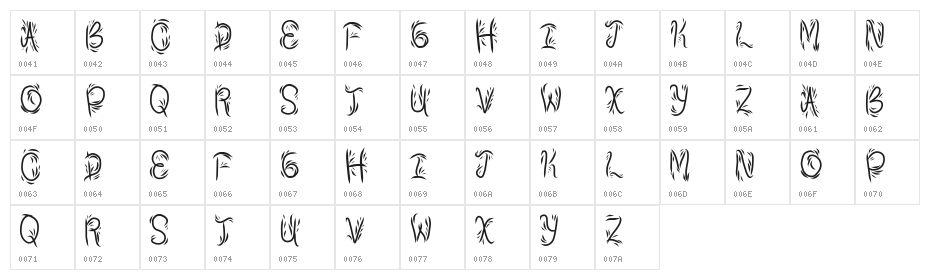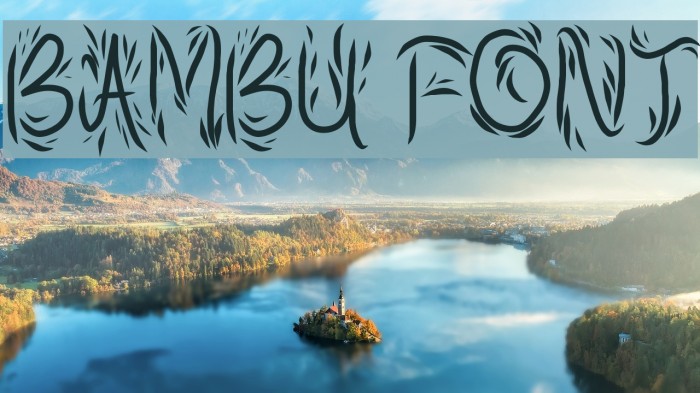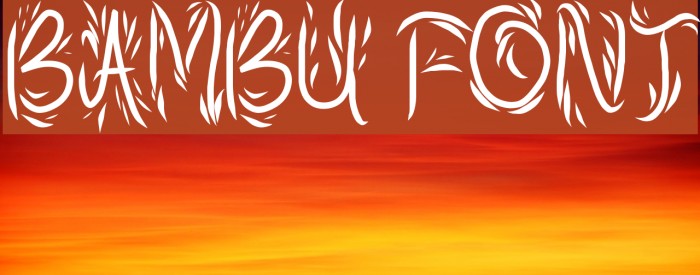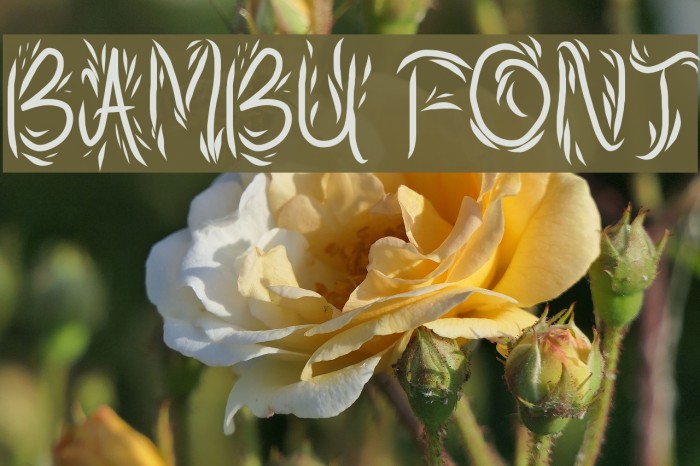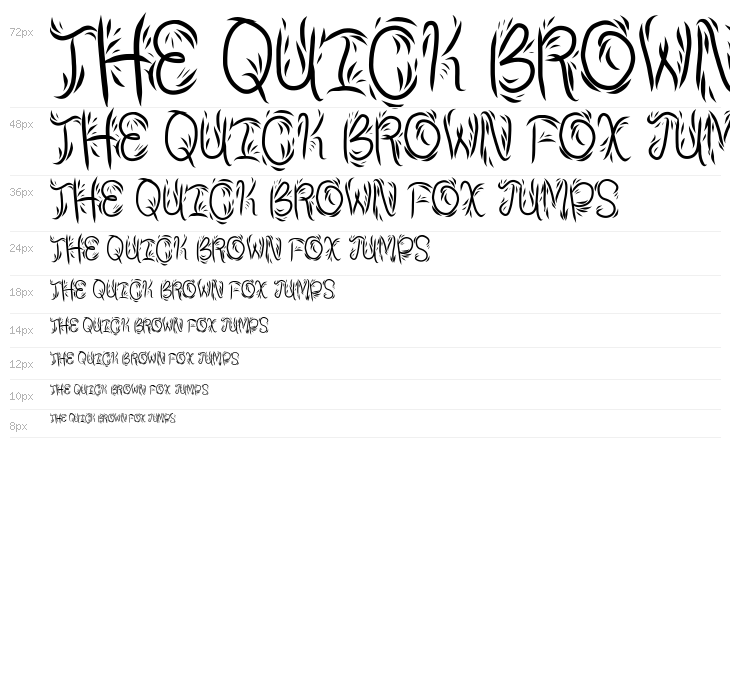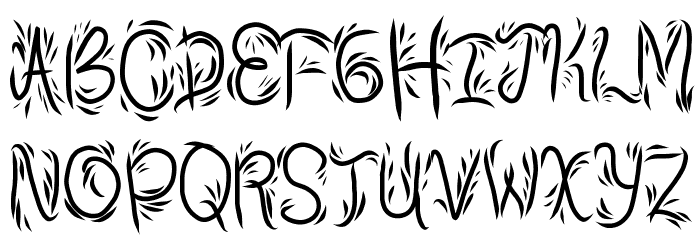
bambu Font
bambu Description
This font features a highly decorative and artistic style, with each character resembling intricate bamboo or vine-like patterns. The strokes are bold and dynamic, with a sense of movement and organic growth. The design is reminiscent of nature, with each letter appearing as if it is crafted from intertwining leaves or branches. This unique style gives the font a distinct and exotic appearance, making it stand out in any design. The characters are well-defined, with a consistent theme throughout the alphabet, providing a cohesive look. The font's intricate details and flowing lines suggest a sense of elegance and creativity, making it suitable for projects that require a touch of nature-inspired artistry.
| Use Case | Logos, Headlines, Artistic designs |
| Proposed Projects | Ideal for eco-friendly branding, nature-themed posters, artistic invitations, or any project seeking a unique, organic aesthetic. |